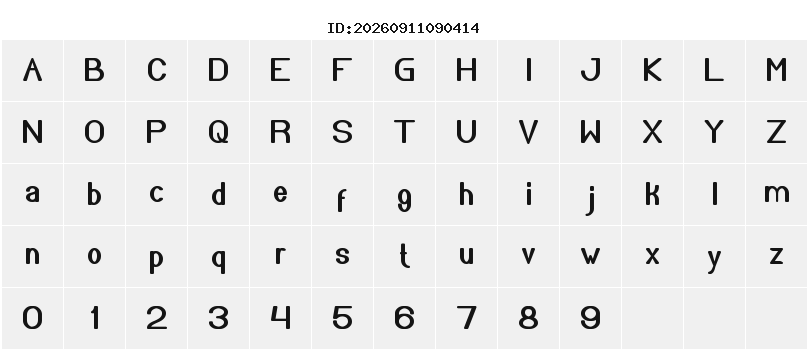
• Font Name: Valentine In Love
About Valentine In Love.ttf
Valentine In Love.ttf is a modern, elegant sans-serif font designed for ultimate readability and visual harmony. Perfect for branding, headlines, web design, and print materials.